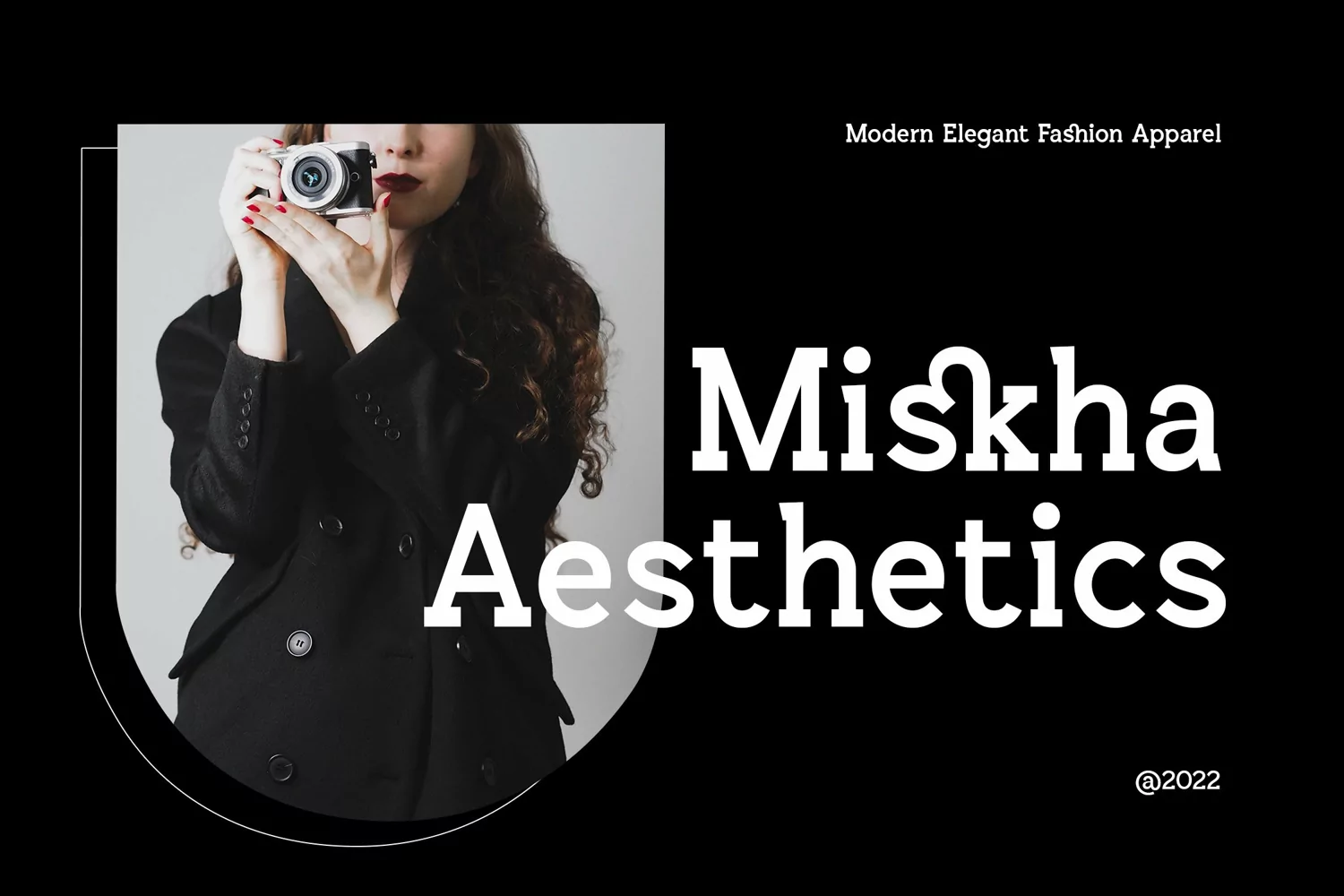
Merquin - Sport and Modern Bold Slab Serif - Vintage Adventure Display Font
Suitable for any design needs : logo, branding, modern advertising design, vintage garage design, adventure / mountain hiking brand, hardcore music, animation or movie, logos, retro summer poster quote, book / novel cover Title, editorial design, website / blog, card, and more.